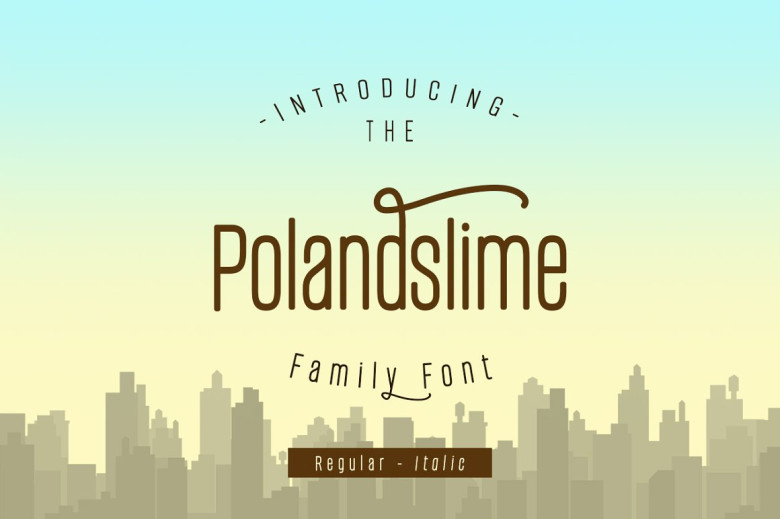
Polandslime Font
Polandslime Sans Serif Font very suitable for poster, for logo, music cover, clothing, and many many cool design projects. Polandslime Font is uppercase and lowercase. Numeric and international font. Regular and Italic font.
Polandslime Sans Serif Font